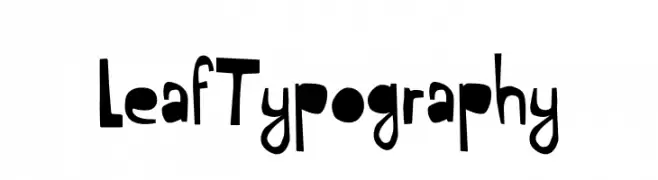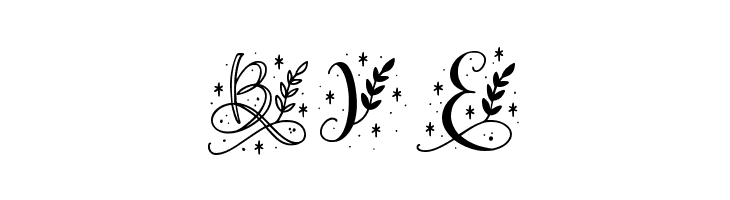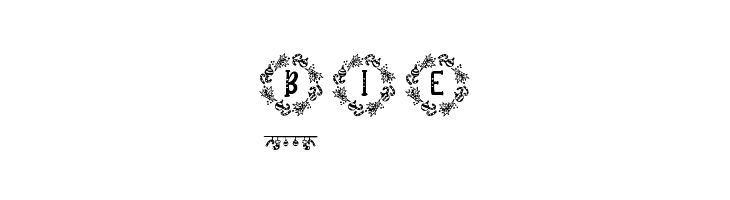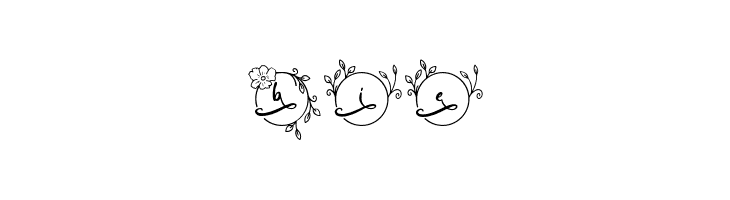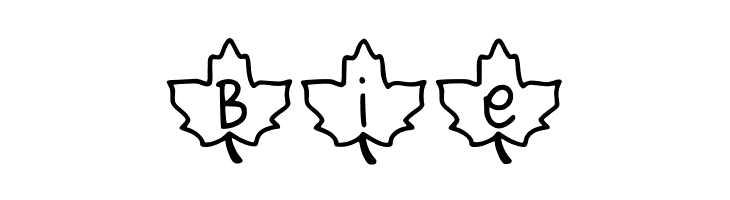
An ornate, floral-decorated font ideal for elegant and sophisticated designs.
A decorative monogram font with uppercase letters encased in festive wreath designs.
A decorative font with floral monogrammed letters and a whimsical, elegant style.
Whimsical hand-drawn botanical ornament.
A whimsical collection of autumn-themed dingbats featuring turkeys, pumpkins, and other harvest symbols.
Delicate hand-drawn botanical and floral illustration set.
A playful, organic font with a hand-drawn, leaf-like design.
A decorative font with characters inside maple leaf outlines.
A bold, decorative font with nature-inspired ornamental elements.
A decorative floral dingbat font with diverse botanical icons.